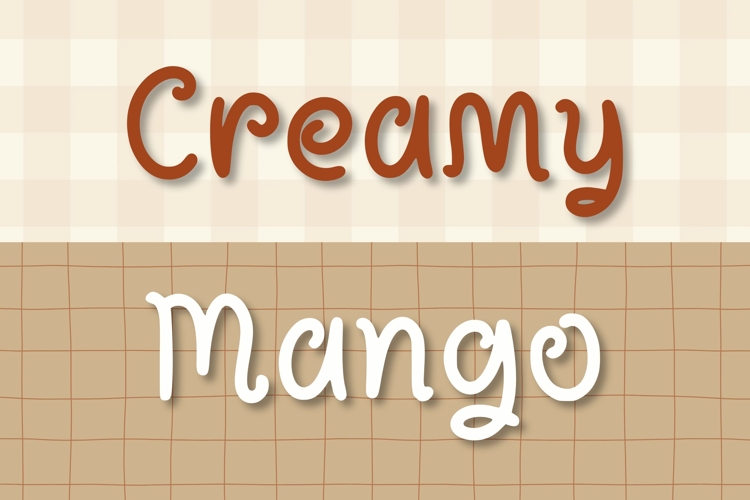
Introducing the Creamy Mango Font - a unique typeface that effortlessly blends style and versatility. Ideal for embellishing design projects, highlighting crucial elements in recipes, or adding an attractive flair to product packaging. This font transforms your text into a visually arresting design element that engages viewers, while maintaining readability and clarity. Unleash your creativity with Creamy Mango Font, the typographical solution that can transform the ordinary to extraordinary!